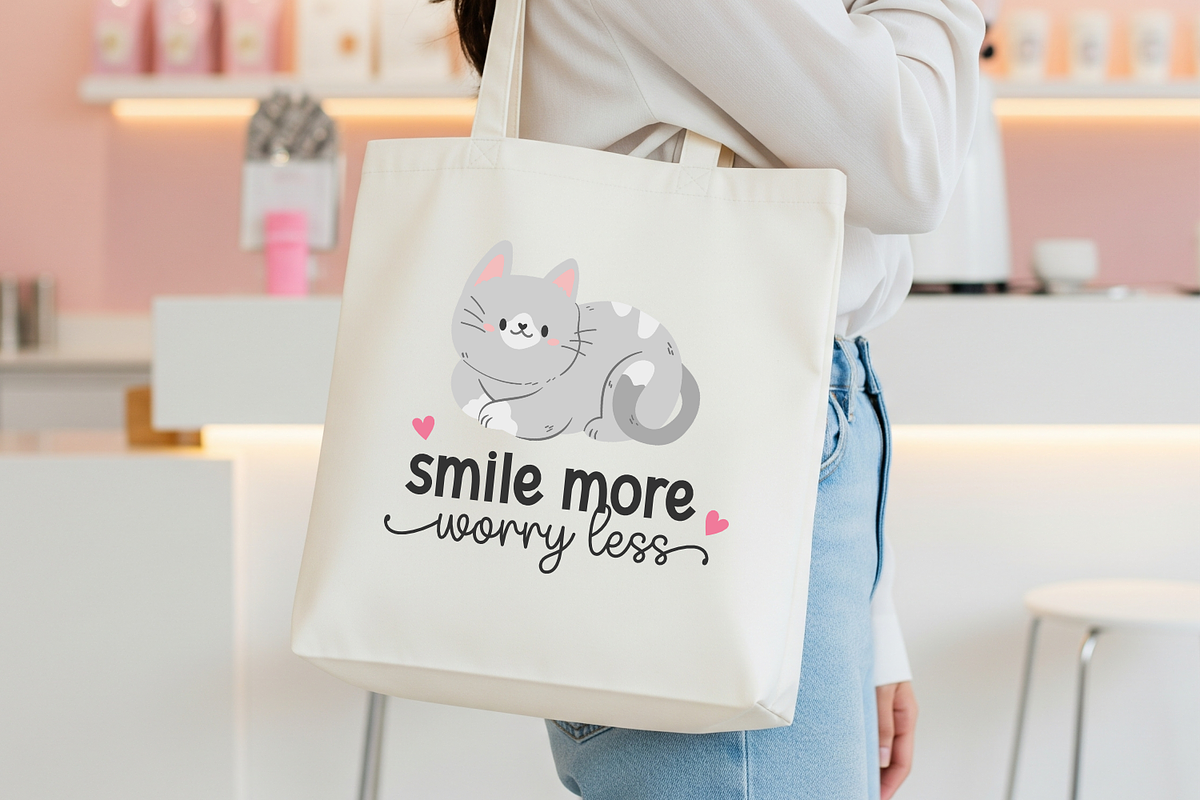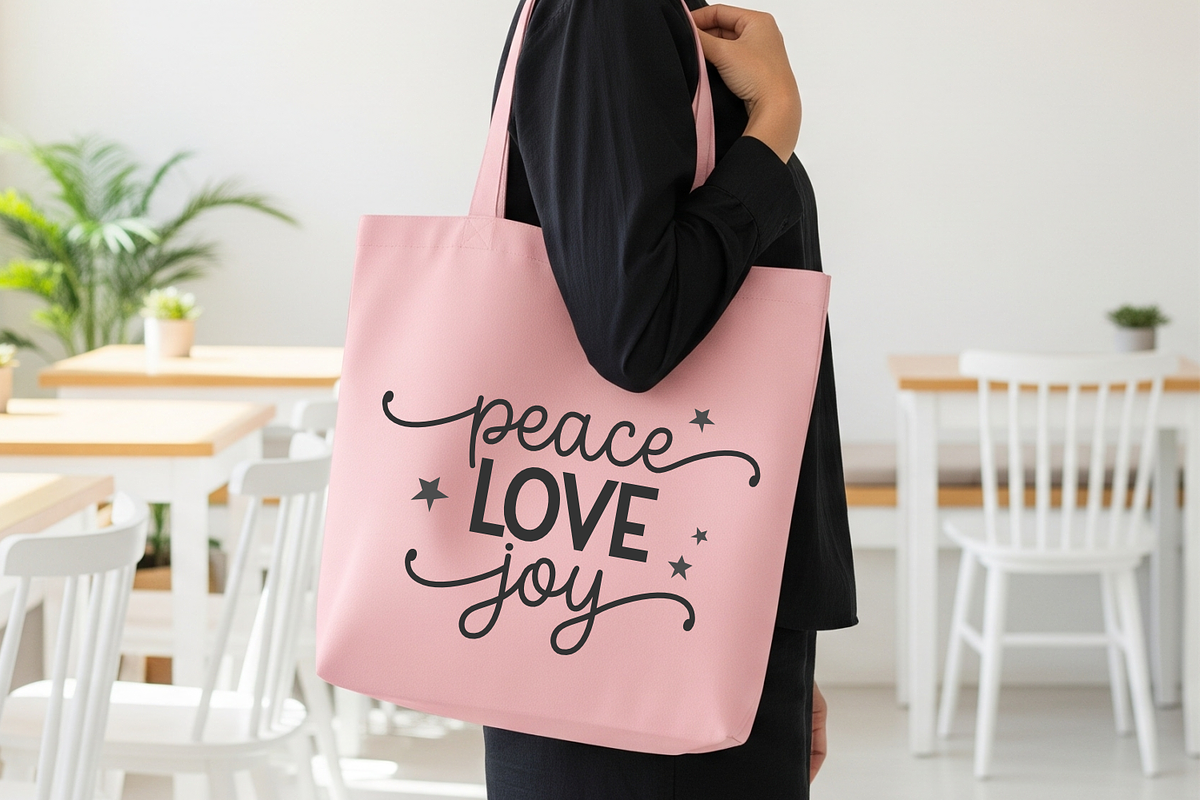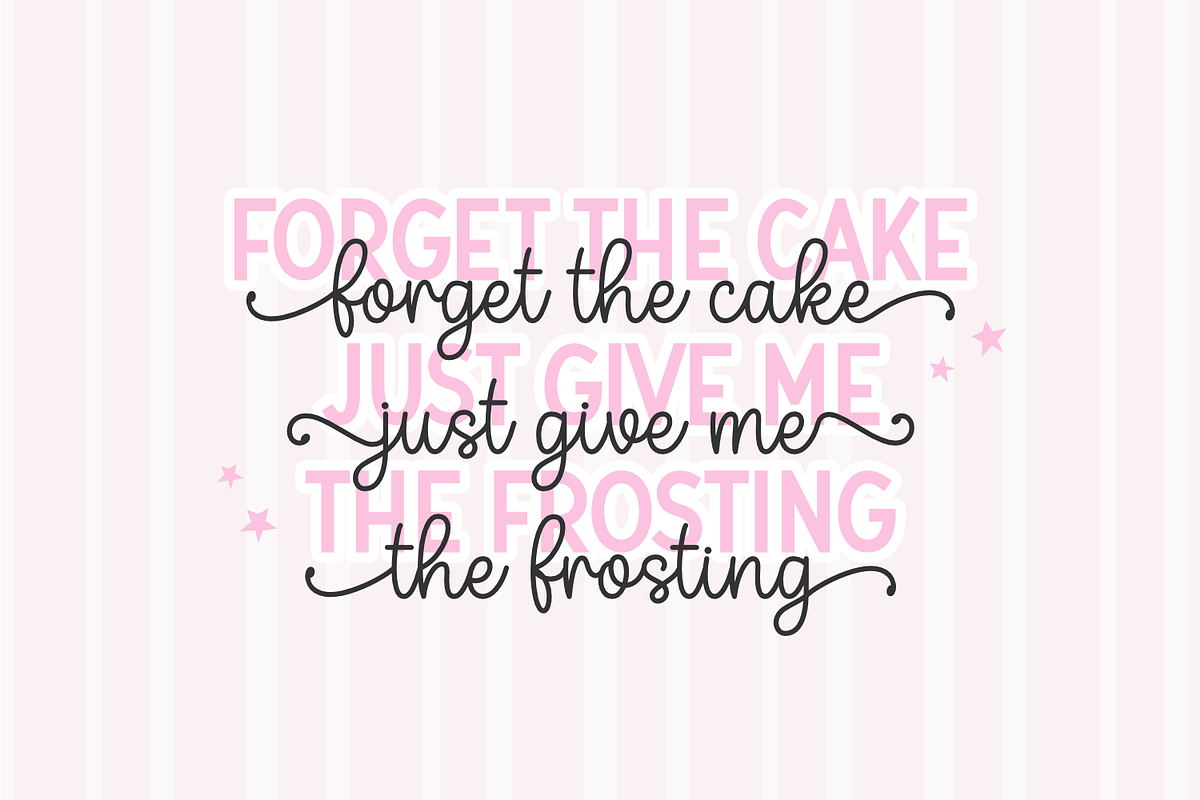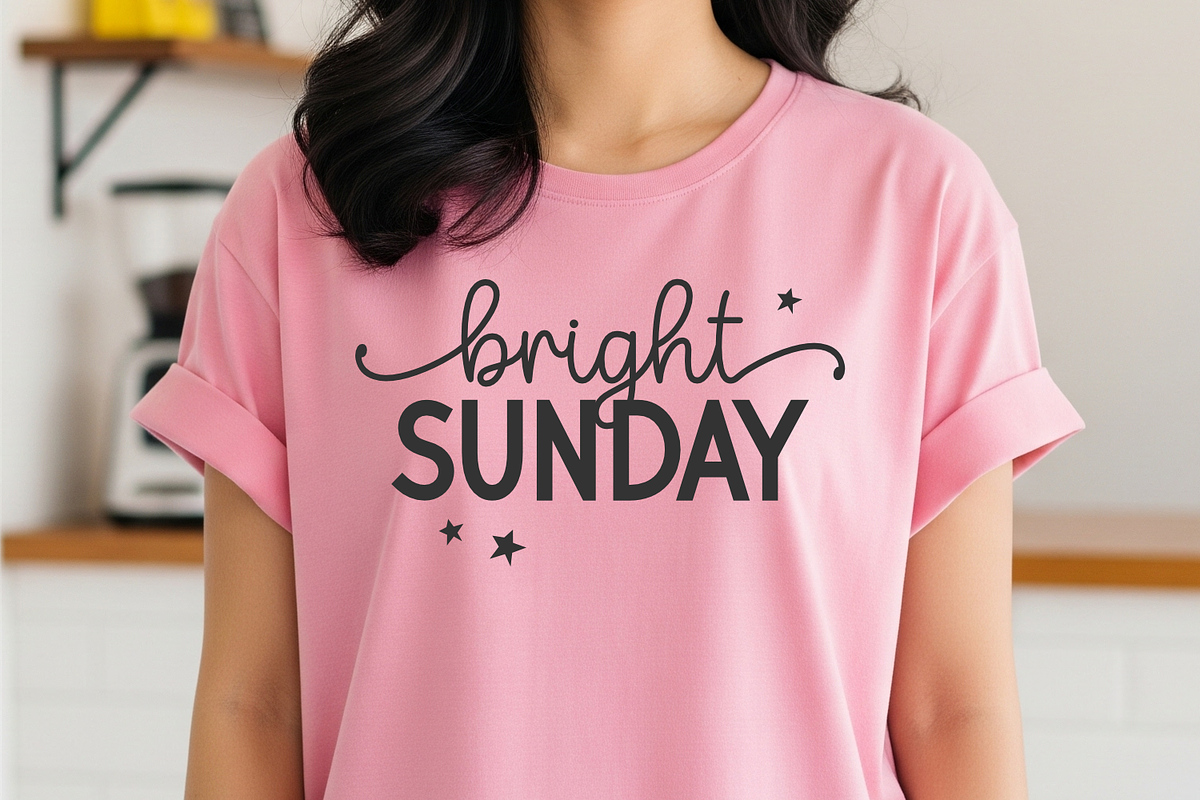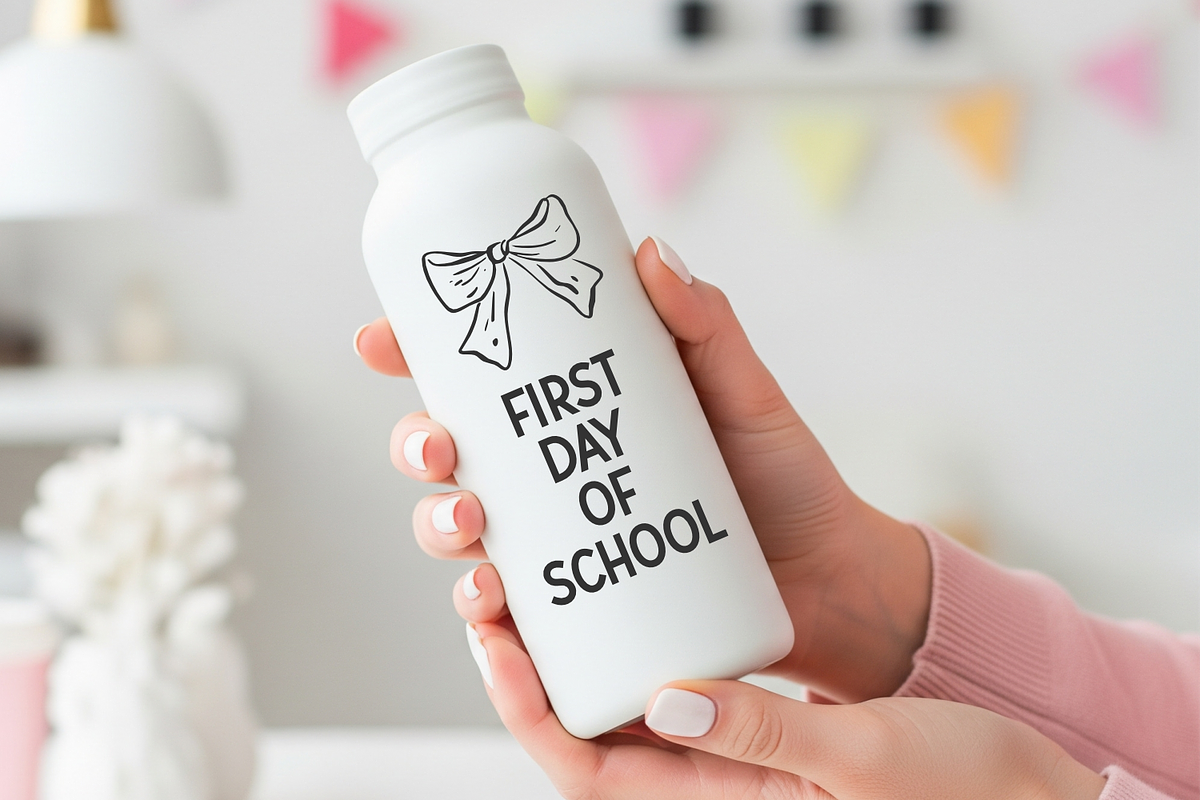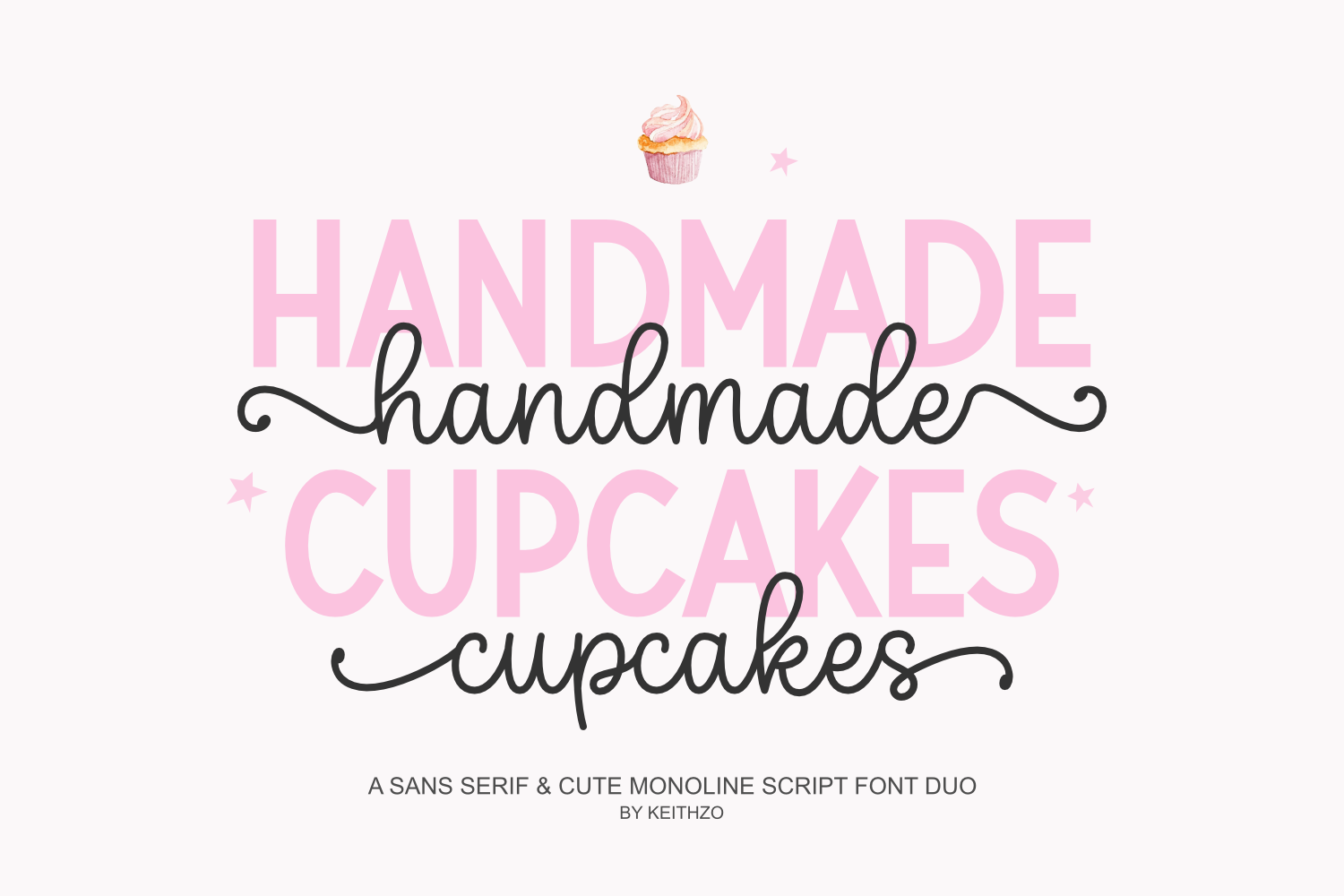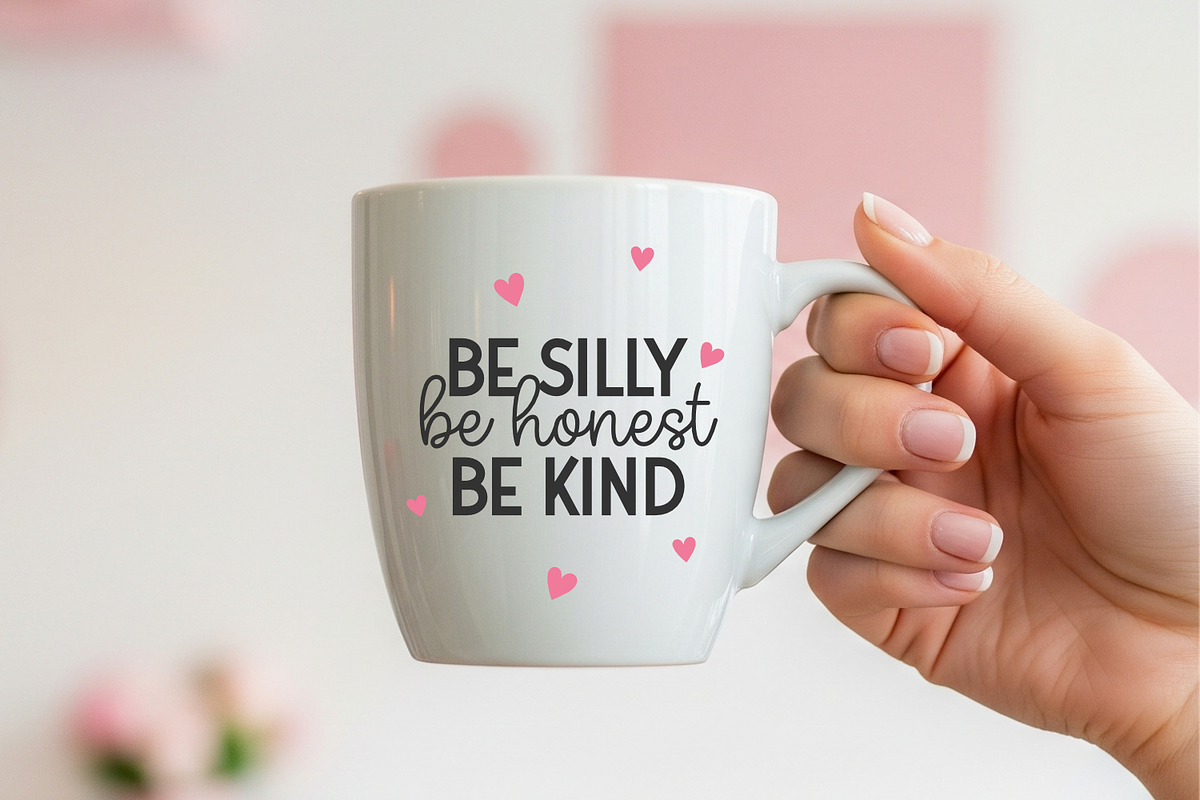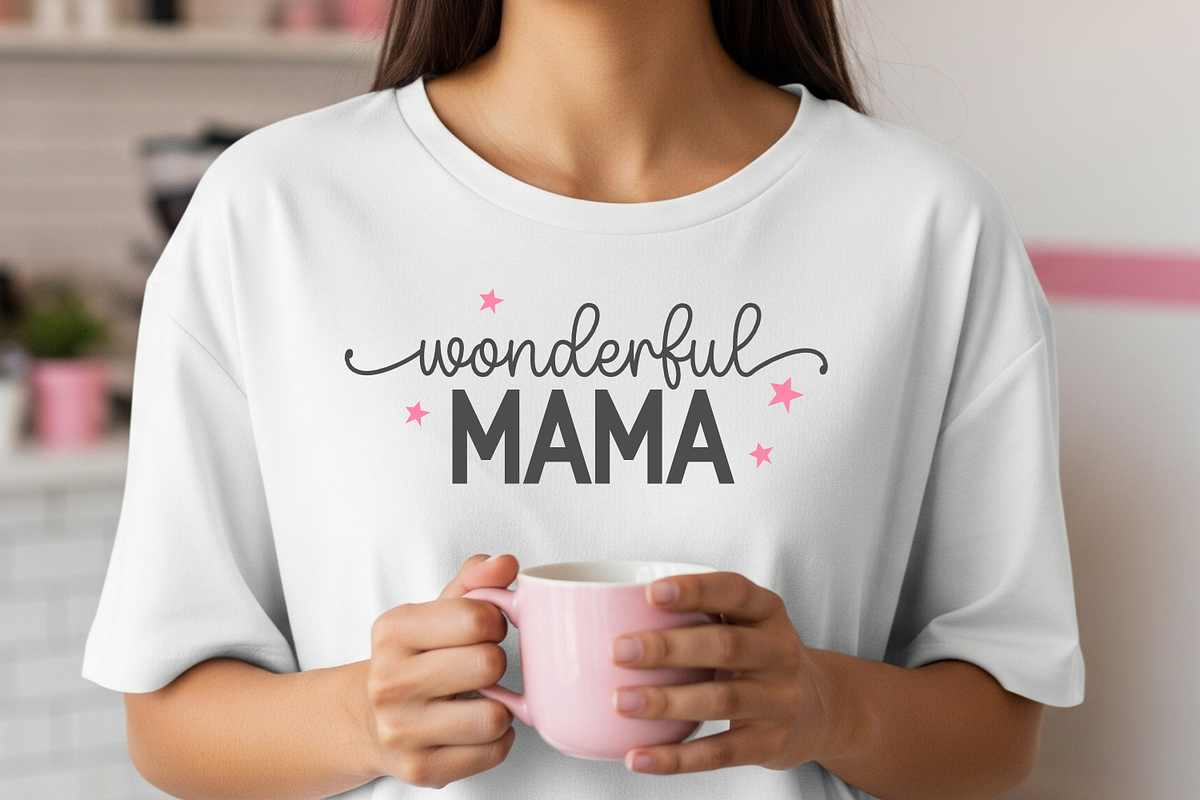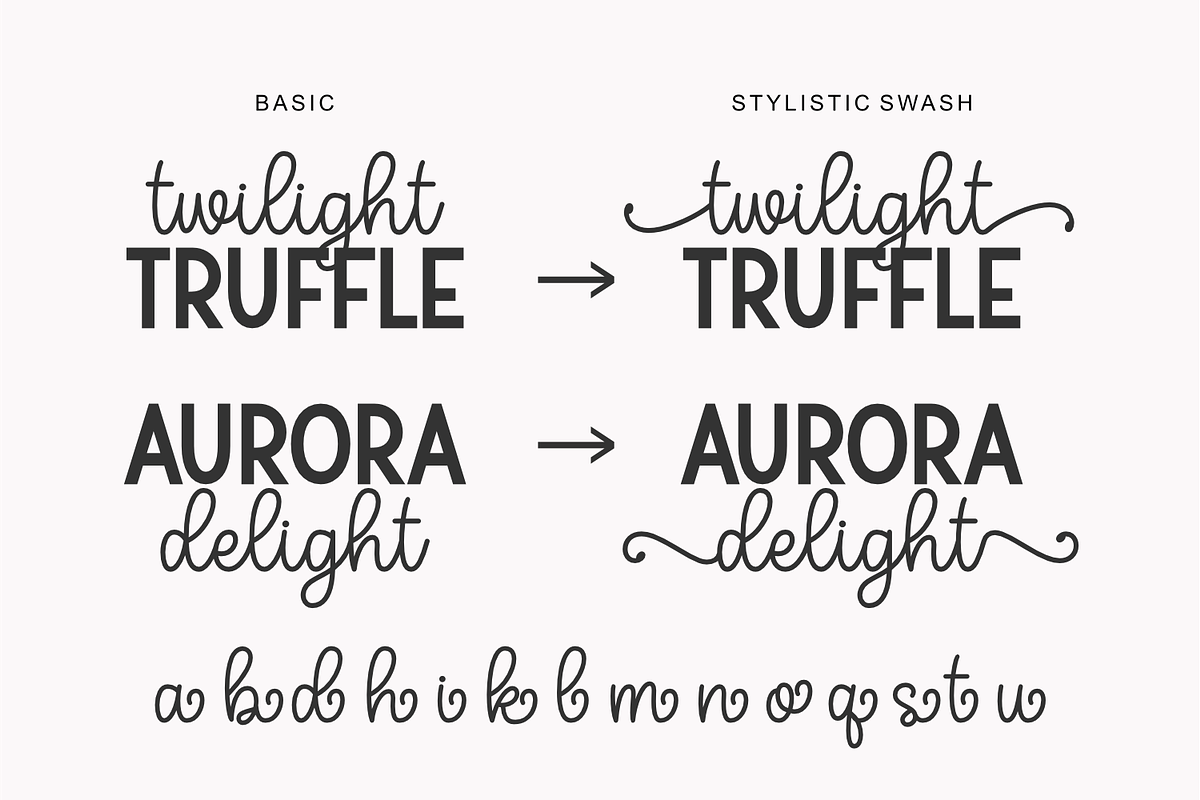
Handmade Cupcakes - Font Duo
Indulge your creative side with the Handmade Cupcakes typeface; a confectionery-inspired duo font that effortlessly mirrors the enticing allure of a mouthwatering baked delight. Versatile and rich, the font offers two decadently alluring styles: a crisp display sans-serif and a whimsical monoline script, rendering it the perfect mix for design pursuits that epitomize sophistication, modernity and beguiling charm.
Jam-packed with a variety of symbols and compatible with multiple languages, the Handmade Cupcakes blends smoothly with various applications, including but not limited to Canva, Procreate, Cricut, and Silhouette Studio. Unlock the boundless potential of your creativity using Handmade Cupcakes in a broad spectrum of print and digital mediums, extending from stylish apparel like tees and hoodies to practical items like mugs, tote bags, digital planners, and even branding materials.
Venture into its assorted uppercase and lowercase configurations, plunging into the delectable charm this font oozes, akin to savoring a delightfully sweet strawberry cake. No corner has been cut short in crafting the Handmade Cupcakes duo font, complete with PUA encoding for seamless access to all alternative characters, glyphs and swashes. Experience the delightful delicacy of design with Handmade Cupcakes inviting you to design deliciously.